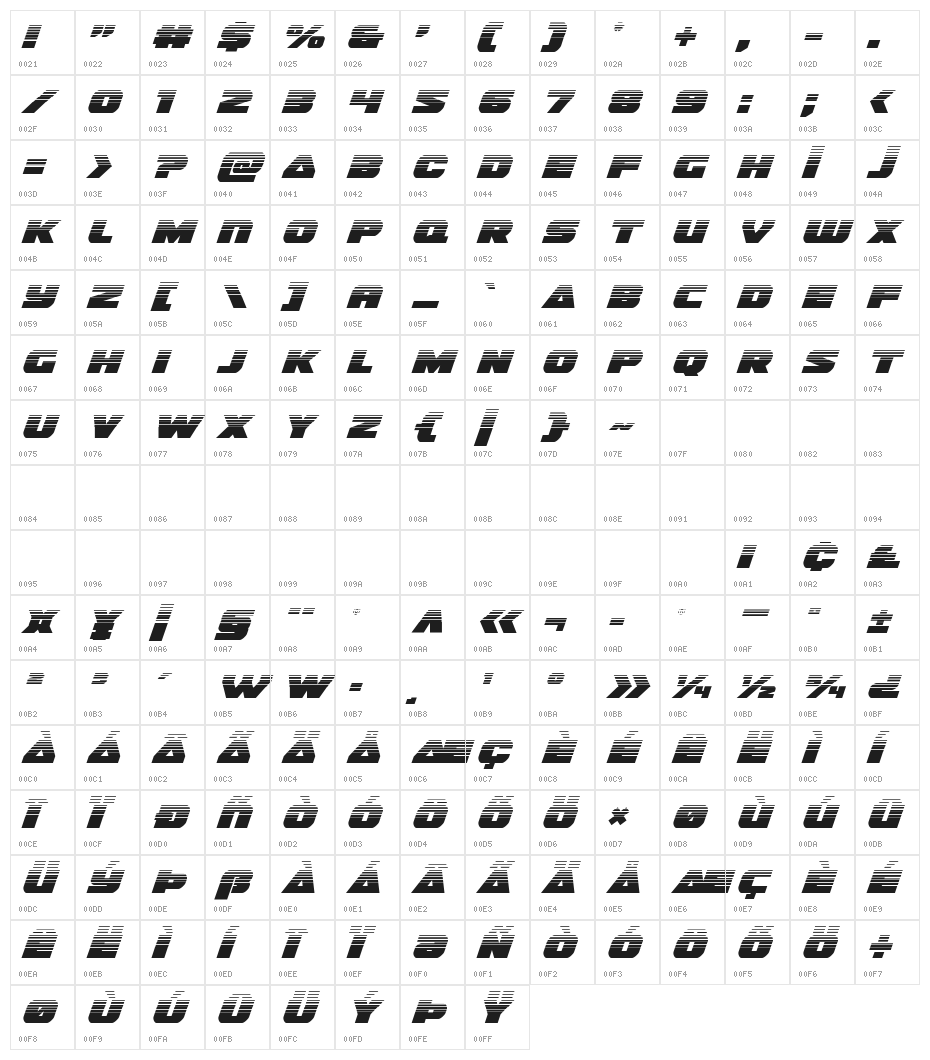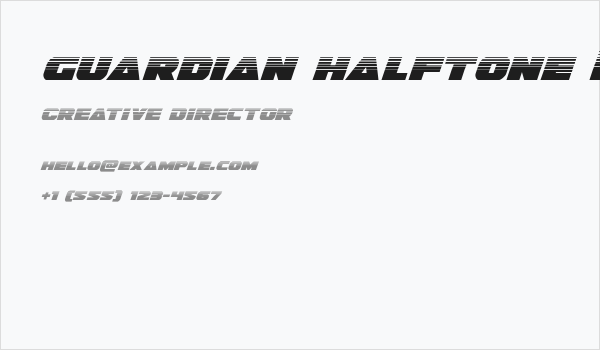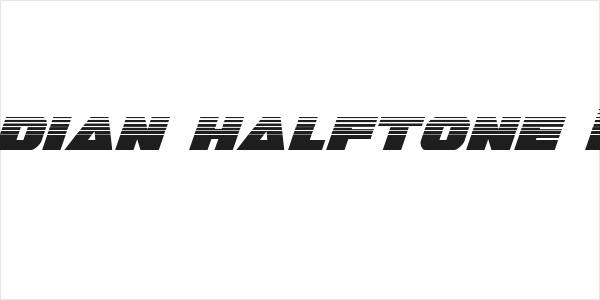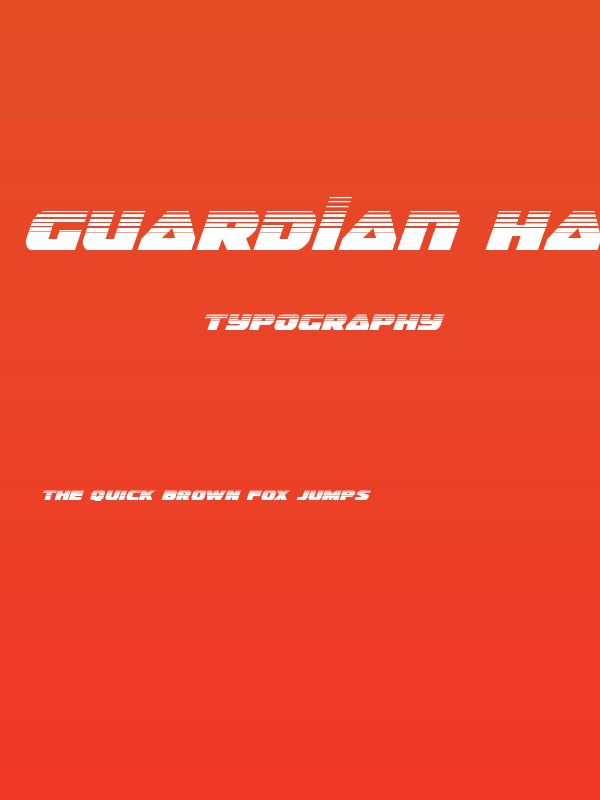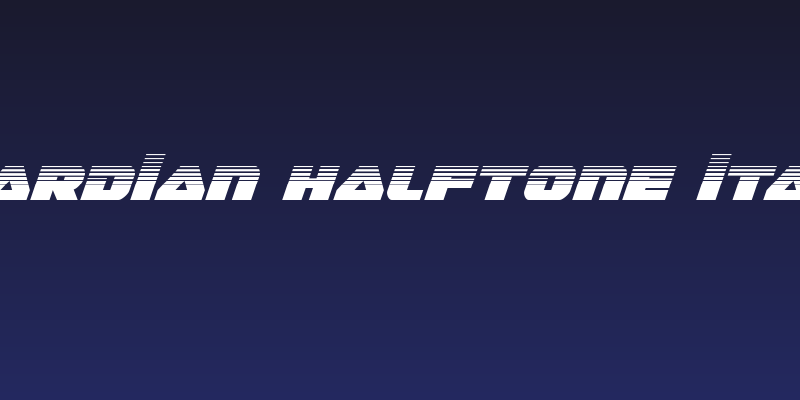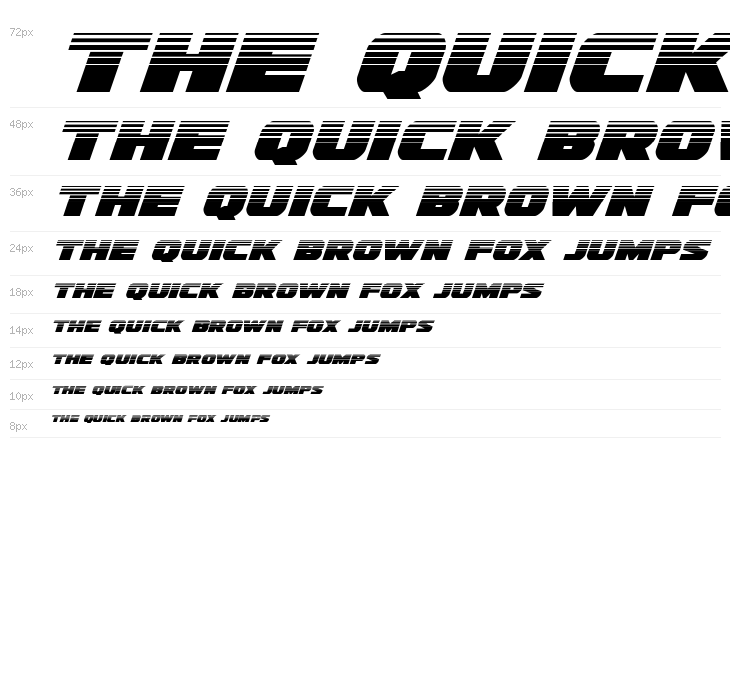
Guardian Halftone Italic Font
Guardian Halftone Italic Description
This font features a bold, italicized style with a unique halftone effect, giving it a dynamic and futuristic appearance. The uppercase and lowercase letters are designed with sharp angles and a distinctive slanted orientation, enhancing its modern aesthetic. The numbers and special characters maintain the same stylistic approach, ensuring consistency across all glyphs. The halftone lines add a sense of movement and depth, making it stand out in various design applications. This font is ideal for projects that require a bold and eye-catching typeface, such as posters, logos, and headlines. Its strong presence and unique design make it suitable for creative and innovative projects.
| Proposed Projects | Ideal for posters, logos, headlines, and any project needing a bold, futuristic typeface. |